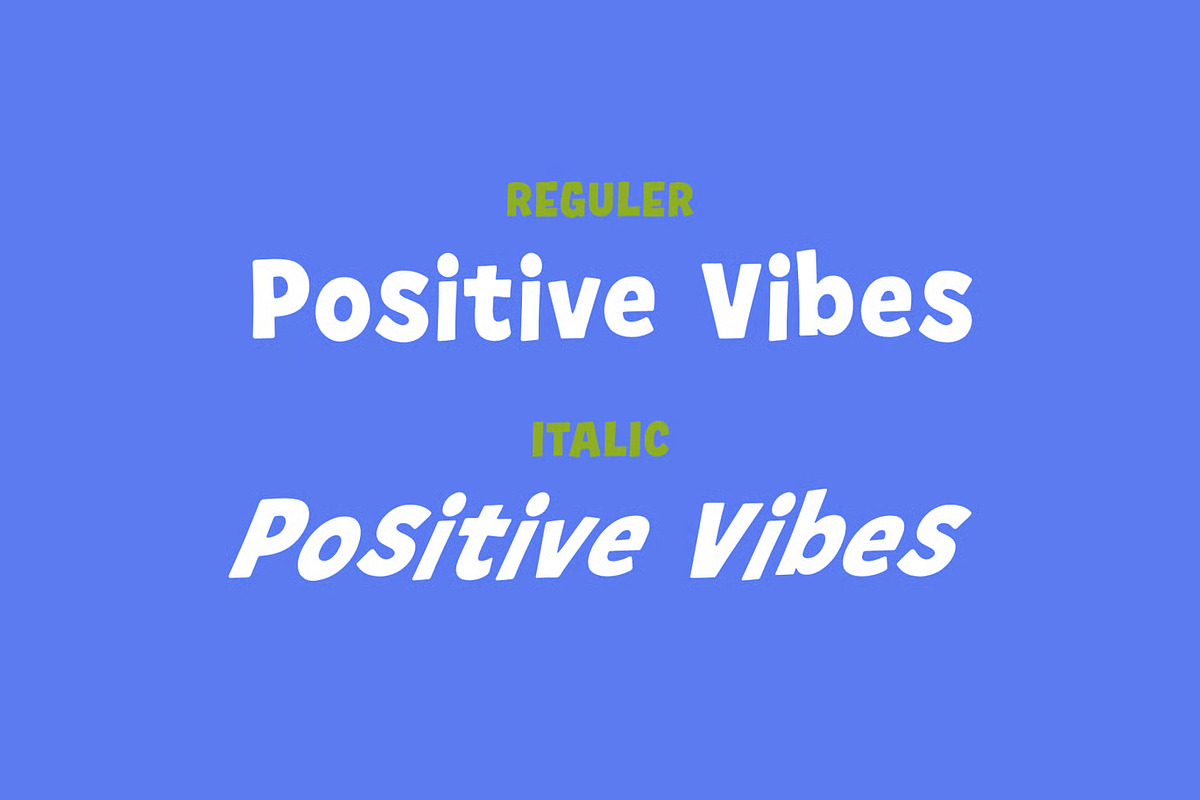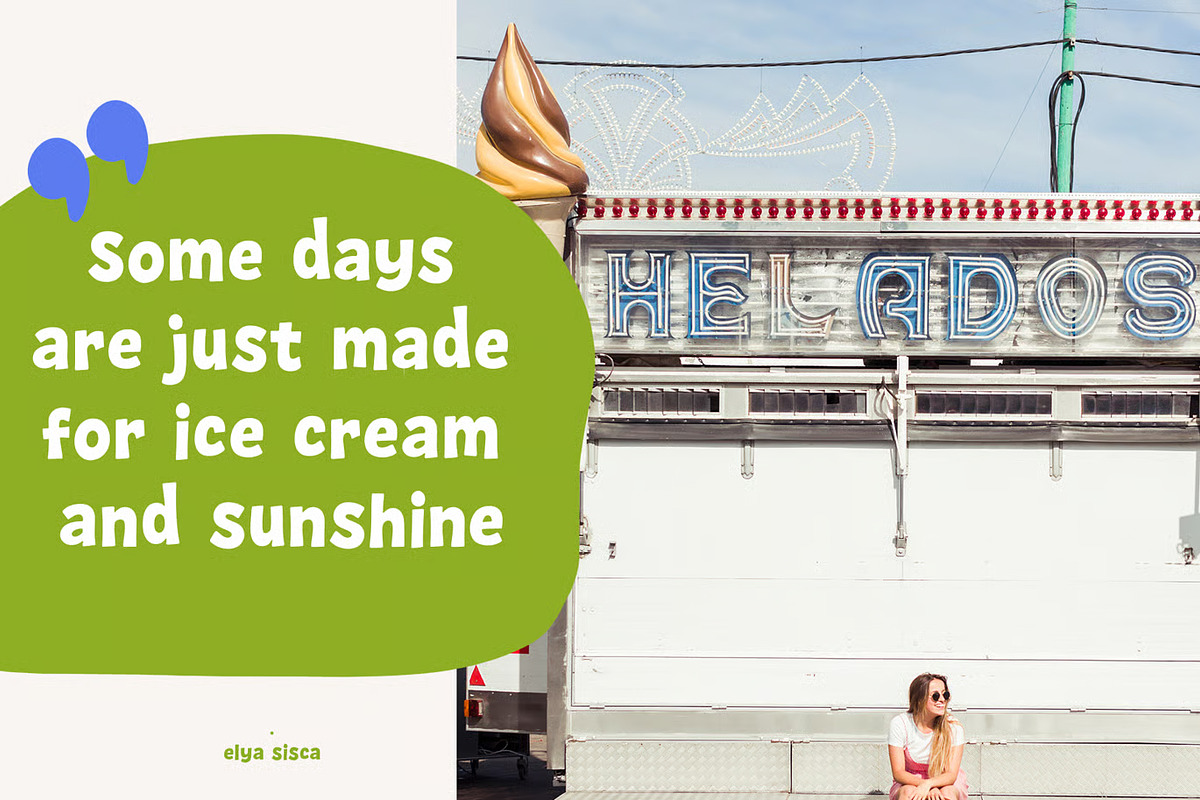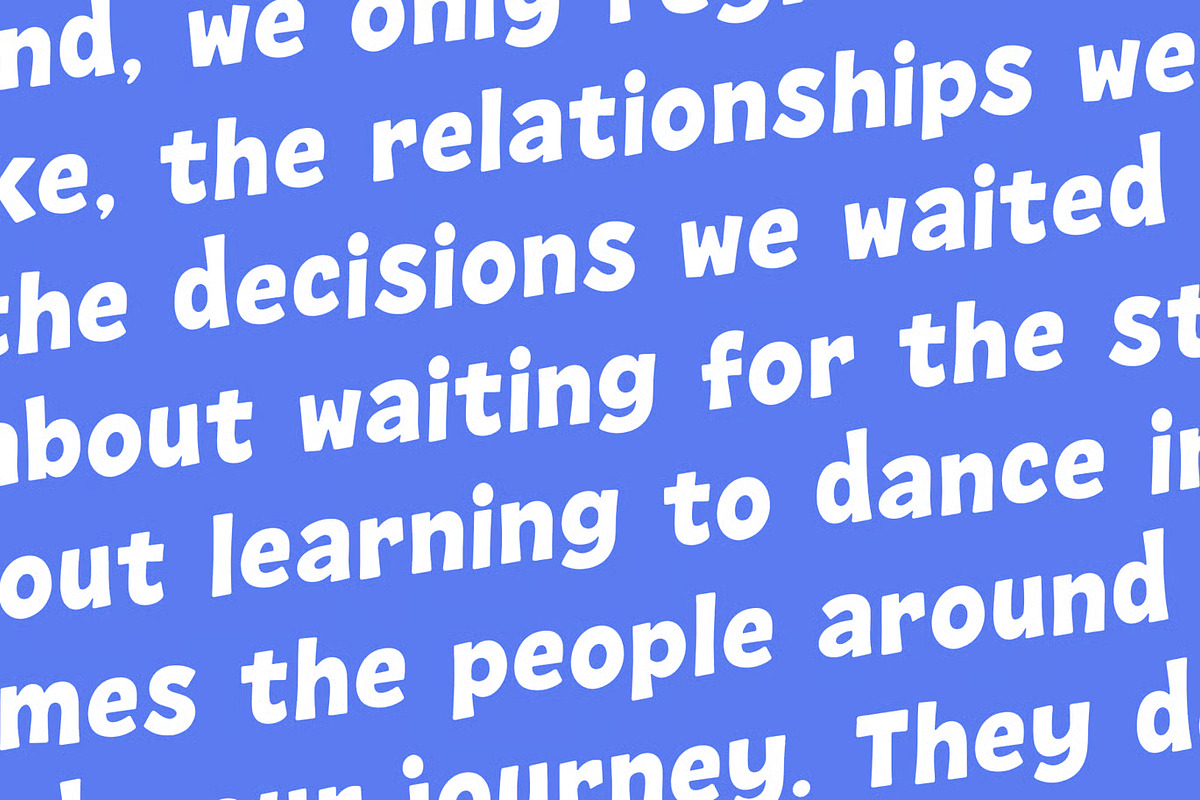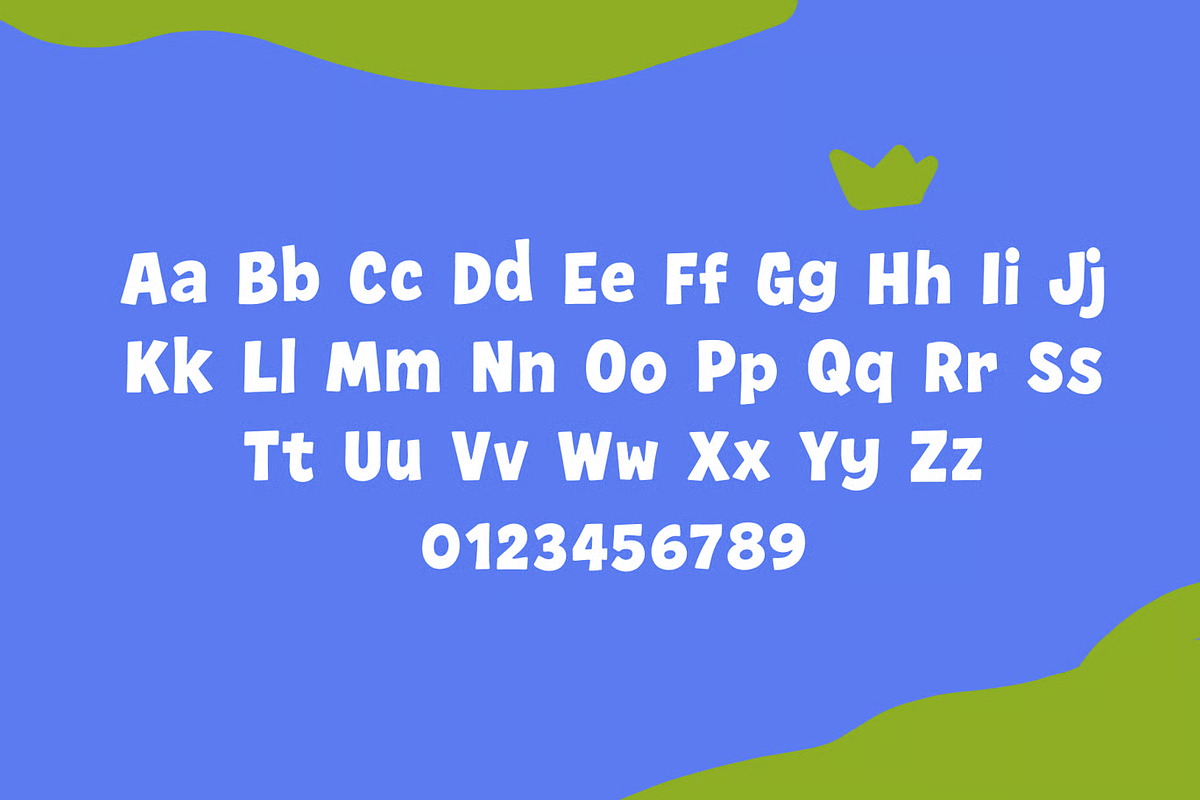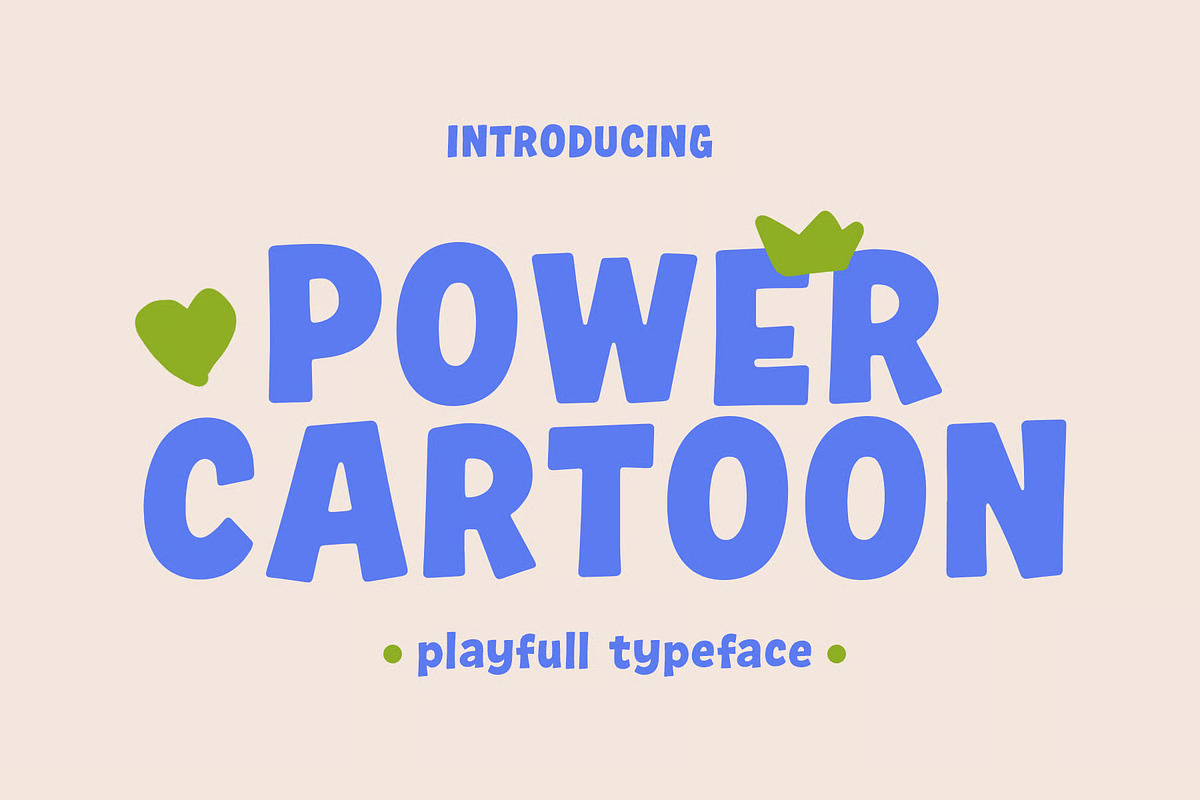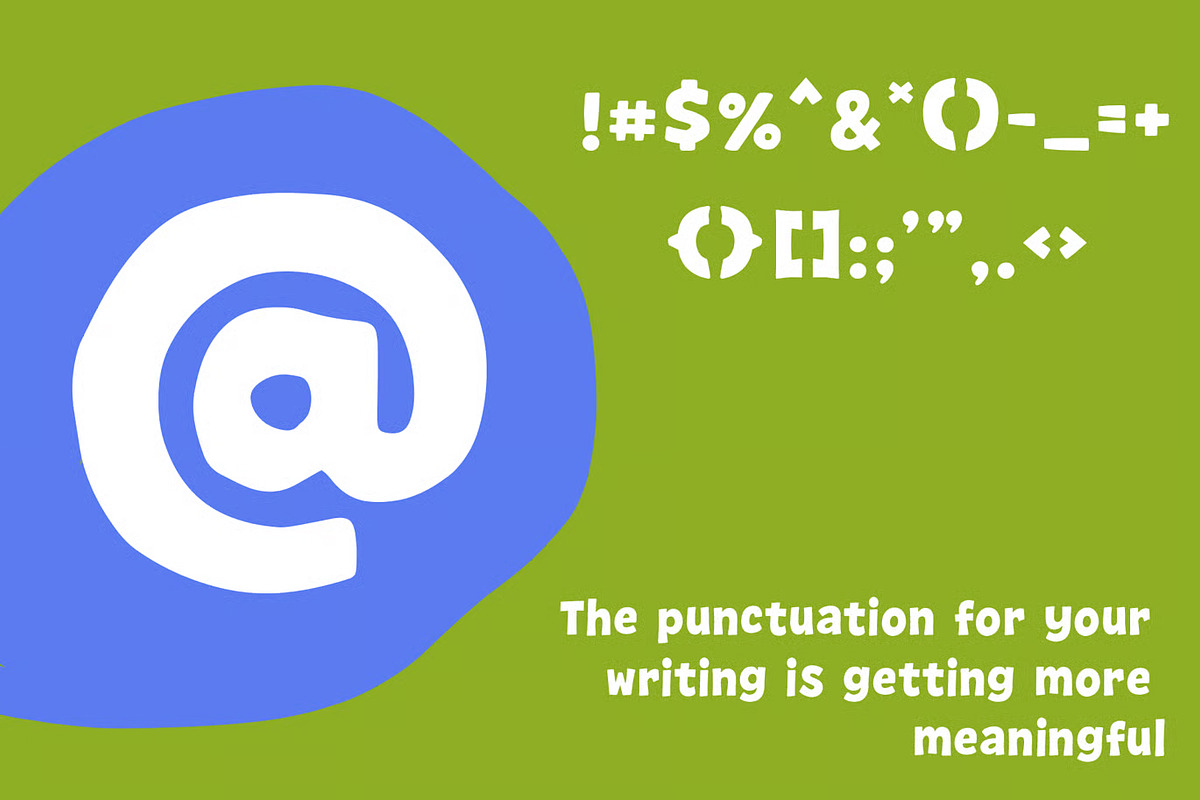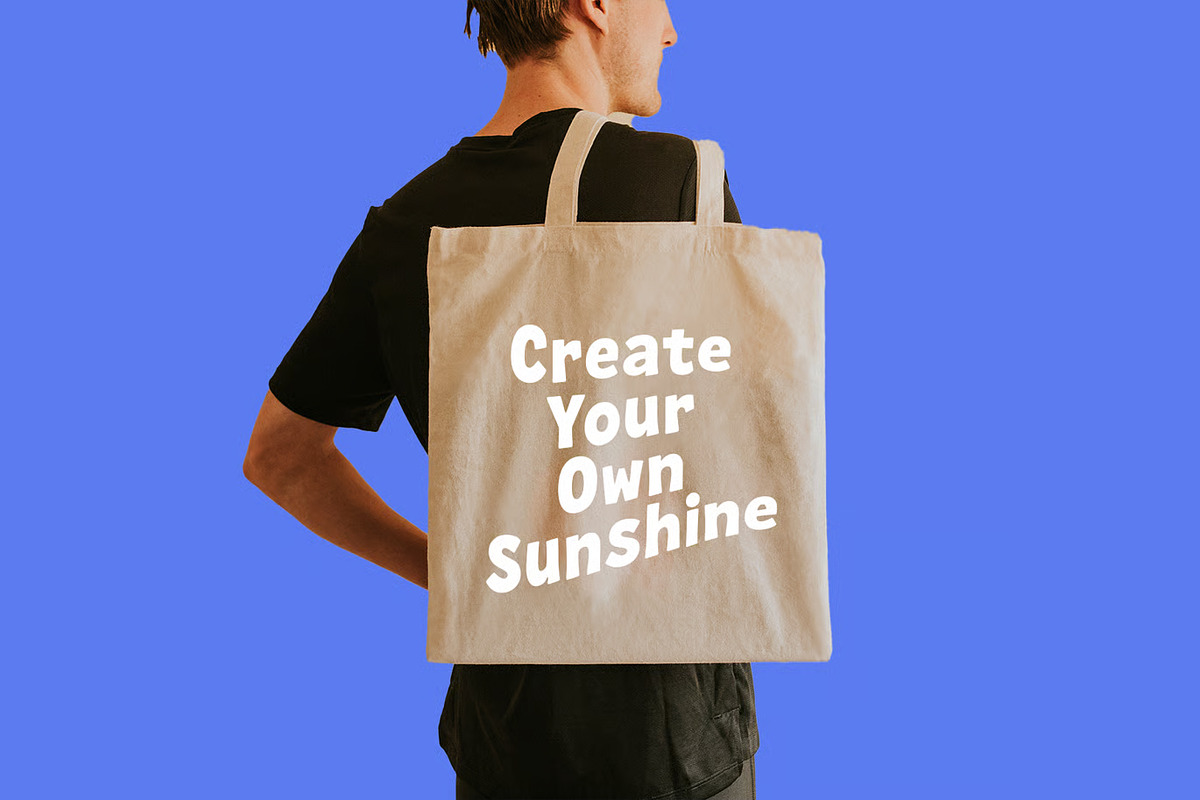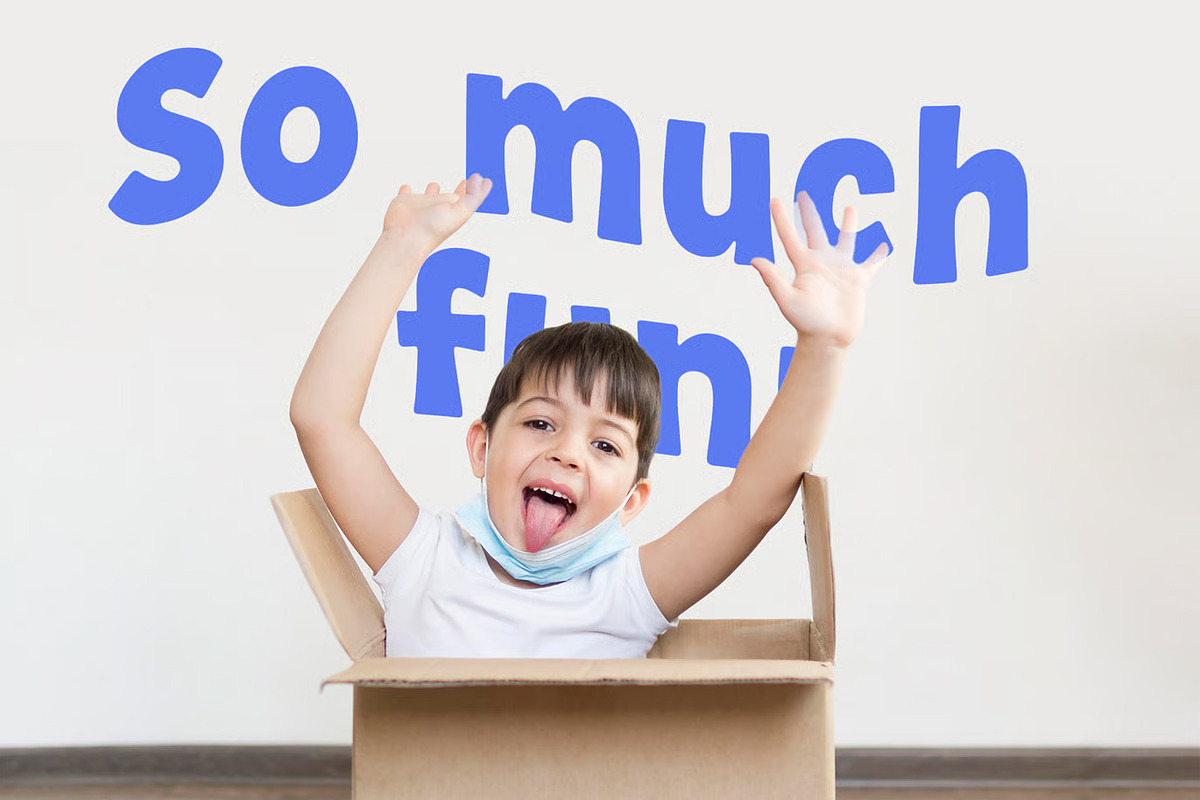
Power Cartoon – Playful Kids Font
Power Cartoon is a fun, bold display typeface crafted for playful branding, cheerful headlines, and eye-catching design statements. With bouncy letterforms and thick, rounded strokes, Power Cartoon is perfect for logos, posters, and packaging that need a touch of charm and energy. Its playful personality and bold structure make it ideal for visual storytelling, while its friendly shapes ensure a fresh, versatile look across various applications.
The letterforms in Power Cartoon are shaped with chunky curves, cheerful proportions, and a lively, confident rhythm that gives the typeface a fun and energetic appearance. It features a bold cartoon-inspired charm that pairs naturally with kids' branding and playful design projects.
With its sturdy, rounded forms and expressive character, Power Cartoon bridges the gap between fun and boldness. It provides a striking, cheerful edge while remaining clean and readable, ensuring a lively, versatile look across various applications.
Regular and Italic Version
Numeral & Punctuations
Perfect For: logos, posters, packaging, and bold branding, as well as children's books, kindergarten branding, and toy branding and packaging. It's a great fit for birthday invitations, party invitations, greeting cards, and storytime flyers, along with educational materials, learning apps, educational posters, and preschool materials. Power Cartoon also works beautifully for classroom decor, cartoon titles, children's apparel, stickers, game branding, app icons, and cheerful digital content.